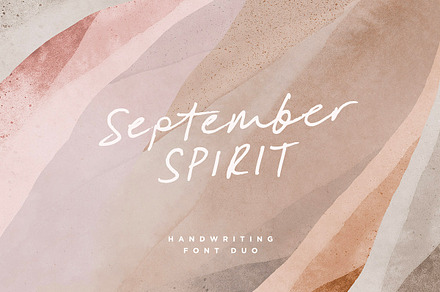
September Spirit Font Duo
A font duo in an autumnal register, pairing a warm script with a textured supporting face suited to seasonal work.
The texture on the supporting font is subtle enough to survive small sizes, which coarser distressed faces do not.
- Subtle texture surviving small sizes
- Alternates and ligatures
Put it to work on
- Autumn campaigns and seasonal print
- Craft and artisan packaging
- Cafe and hospitality branding
- Stationery and social design